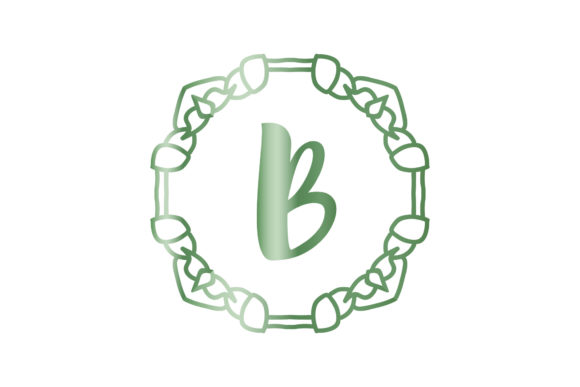
Monogram Illustration Line Mandala Font
Finding the right design elements can be challenging, but Monogram Illustration Line Mandala Font offers an exceptional collection that elevates your work instantly.
Whether you are creating POD (Print on Demand) products, wedding invitations, or social media graphics, Monogram Illustration Line Mandala Font is an ideal fit.